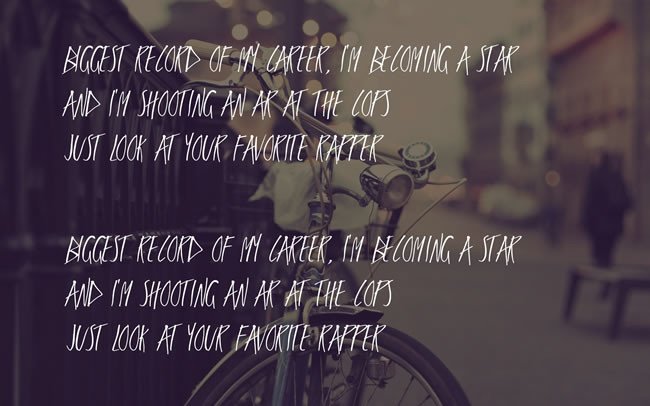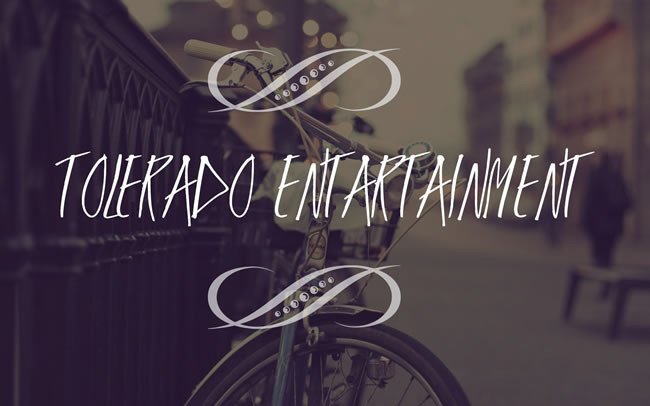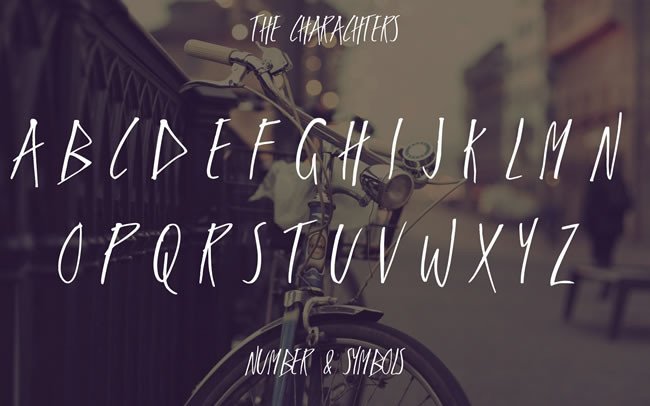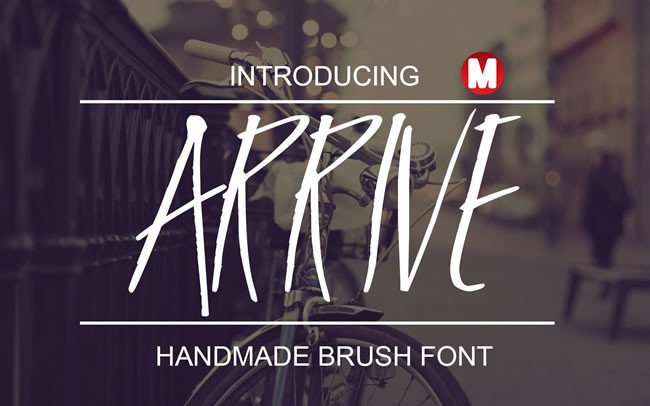
Introducing Arrive Font: A Beautiful Handmade Brush Font for Creative Projects
Are you a designer or crafter looking for a unique and versatile font to elevate your creative projects? Look no further than Arrive Font, a stunning handmade brush font that can be used for a wide range of applications. From headings and signatures to logos, t-shirts, and signage, Arrive Font is the perfect choice for anyone seeking to add a touch of elegance and sophistication to their work.
What Makes Arrive Font So Special?
Arrive Font is a beautifully crafted handmade brush font that boasts a distinctive, organic feel. Its unique character and charm make it an ideal choice for designers and crafters who want to add a personal touch to their projects. The font’s versatility is one of its standout features, making it suitable for use in a variety of contexts, including:
- Headings and titles
- Signatures and logos
- T-shirts and apparel
- Letterheads and stationery
- Signage and posters
- Badges and labels
Key Features of Arrive Font
So, what makes Arrive Font so special? Here are just a few of its key features:
- Handmade with love: Arrive Font is a genuine handmade brush font, crafted with care and attention to detail to ensure a unique and authentic feel.
- High-quality design: The font is designed to be clear and legible, making it perfect for use in a variety of contexts, from digital applications to print materials.
How to Use Arrive Font in Your Projects
Using Arrive Font in your projects is easy. Here are a few tips to get you started:
- Pair it with other fonts: Arrive Font pairs beautifully with other fonts, making it easy to create visually appealing combinations. Try pairing it with a clean sans-serif font for a striking contrast.
- Experiment with colors: The font’s handmade feel lends itself well to a range of colors and textures. Try experimenting with different colors and effects to add depth and interest to your project.
- Use it for emphasis: Arrive Font is perfect for use in headings and titles, where its unique character can really shine. Use it to draw attention to key information or to add emphasis to your message.
Why Designers and Crafters Love Arrive Font
So, why do designers and crafters love Arrive Font? Here are just a few reasons:
- Unique and authentic: Arrive Font’s handmade feel makes it a standout choice for designers and crafters looking to add a personal touch to their projects.
- Versatile: The font’s versatility makes it suitable for use in a wide range of contexts, from digital applications to print materials.
In conclusion, Arrive Font is a beautiful handmade brush font that is perfect for designers and crafters looking to add a touch of elegance and sophistication to their projects. Its unique character, versatility, and ease of use make it an excellent choice for a wide range of applications, from headings and signatures to logos and signage. So why wait? Download Arrive Font today and start creating stunning projects that showcase your creativity and style.